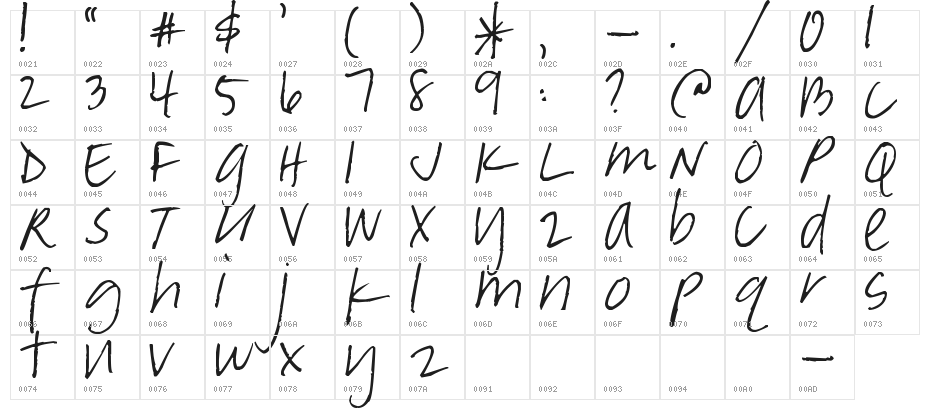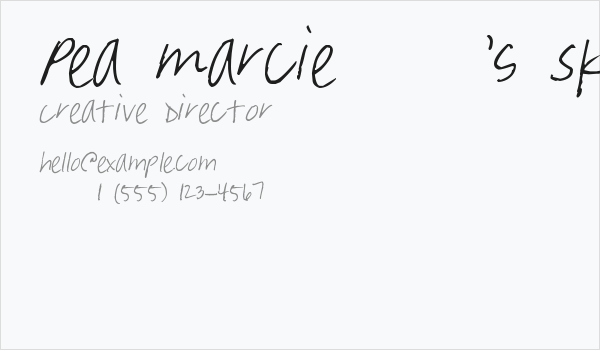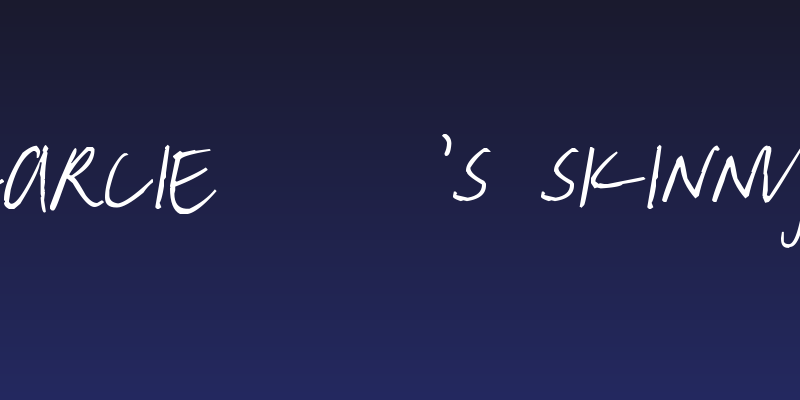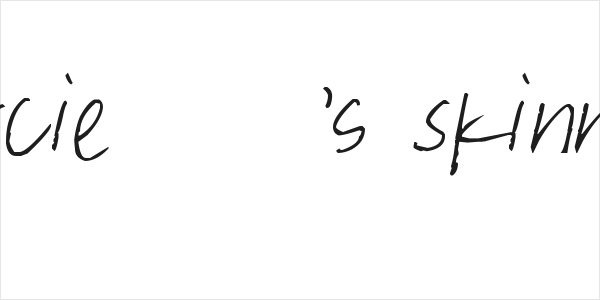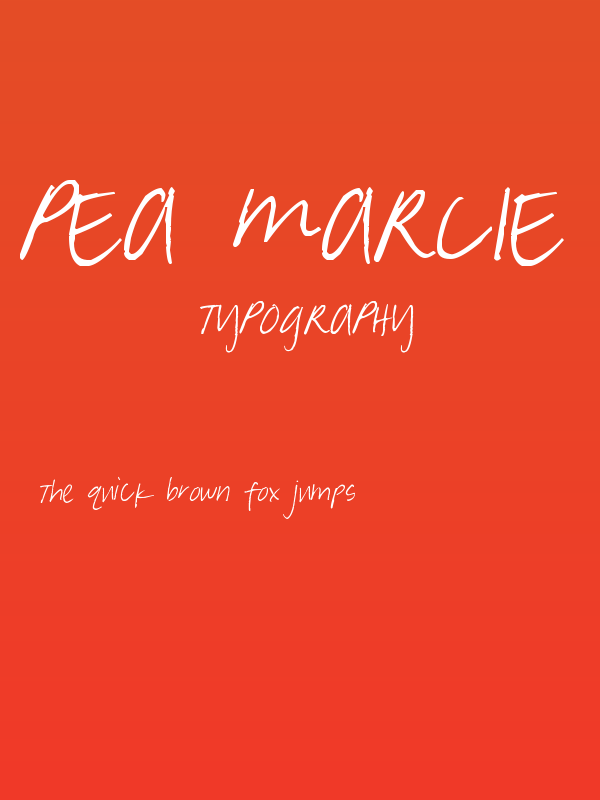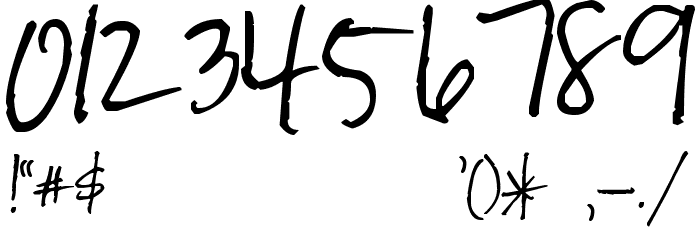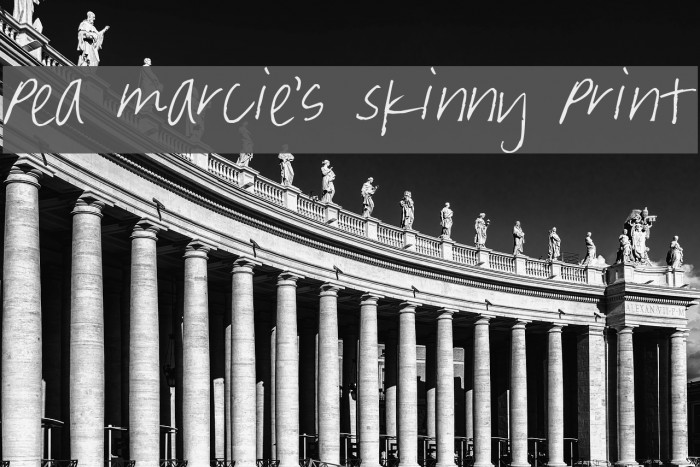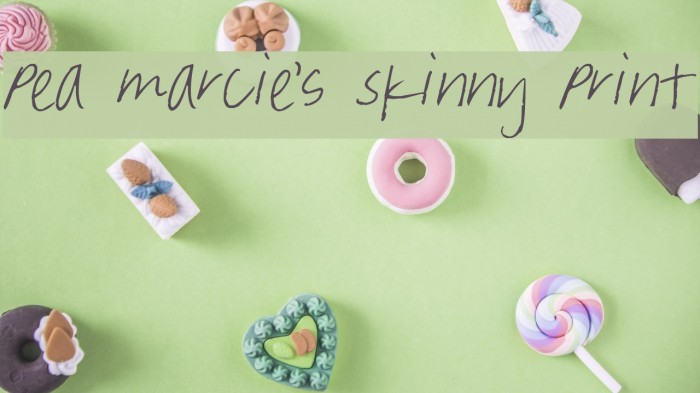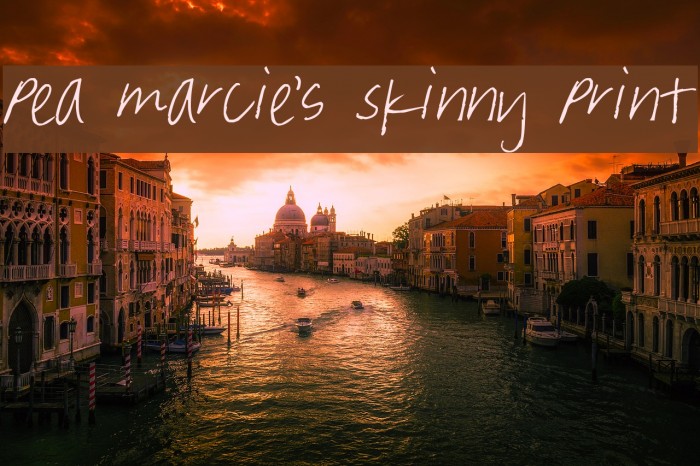
Pea Marcie's Skinny Print Font
Pea Marcie's Skinny Print Description
This font exhibits a casual, handwritten style with a playful and informal appearance. The letters are slightly slanted, giving it a dynamic and lively feel. The strokes are uneven, mimicking the natural flow of handwriting, which adds a personal touch. The uppercase and lowercase letters are well-proportioned, maintaining readability while preserving the font's unique character. The numerals and special characters are consistent with the overall style, ensuring a cohesive look across all elements. This font is ideal for projects that require a personal, friendly, and approachable aesthetic.
| Overall Style | Casual, Playful |
| Use Case | Headlines, Logos, Informal Text |
| Proposed Projects | Greeting cards, personal invitations, casual branding, social media graphics, and informal presentations. |